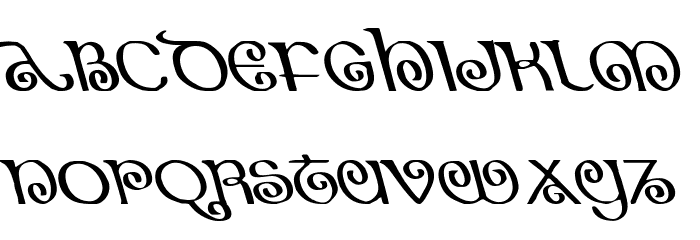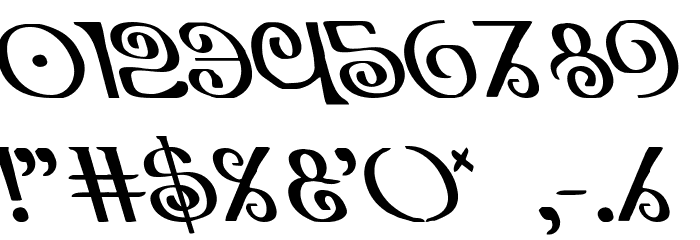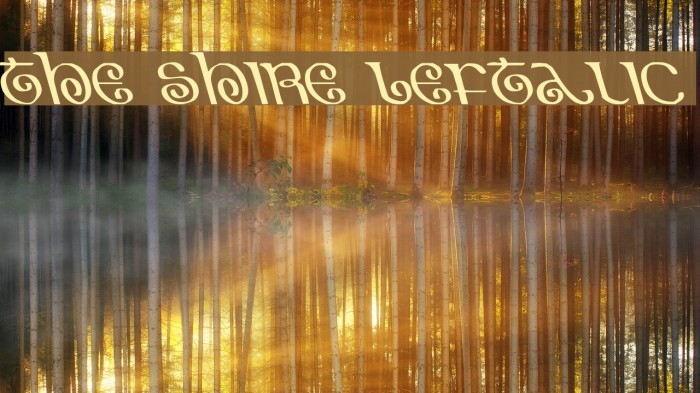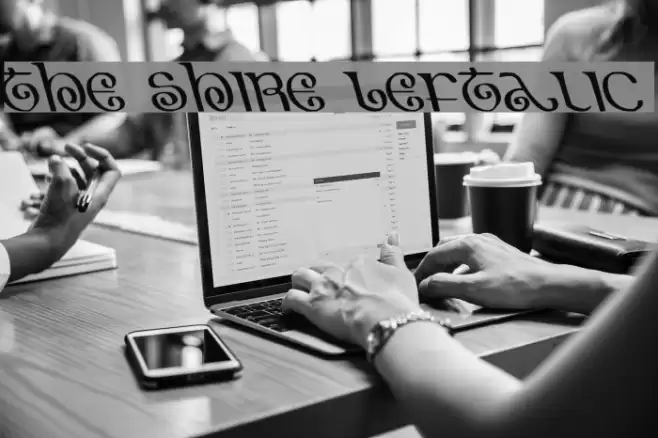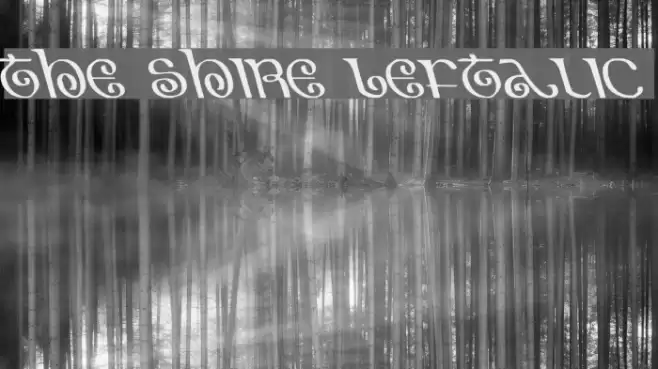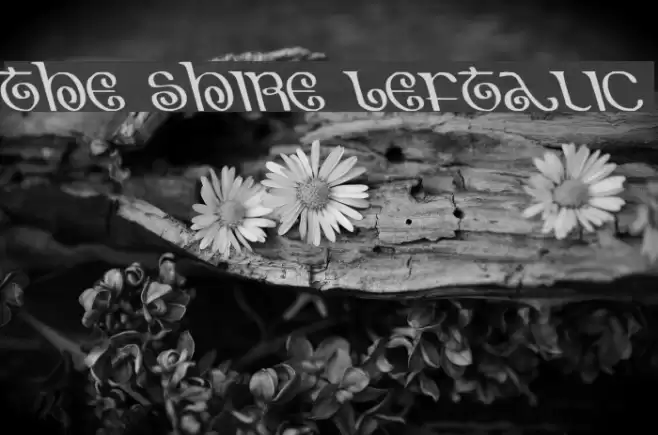
The Shire Leftalic Font
This font features a whimsical and decorative style with a unique flair. Each character is adorned with intricate curls and loops, giving it an enchanting and playful appearance. The uppercase letters are bold and prominent, while the lowercase letters maintain a consistent style with slightly more delicate strokes. Numbers and special characters are designed to match the overall aesthetic, incorporating similar decorative elements. The font's distinctiveness makes it ideal for projects that require a touch of fantasy or creativity.
A whimsical and decorative font with intricate curls and loops.
- Font: The Shire Leftalic
- Proposed Projects: Ideal for fantasy-themed designs, children's book covers, creative invitations, and artistic posters.